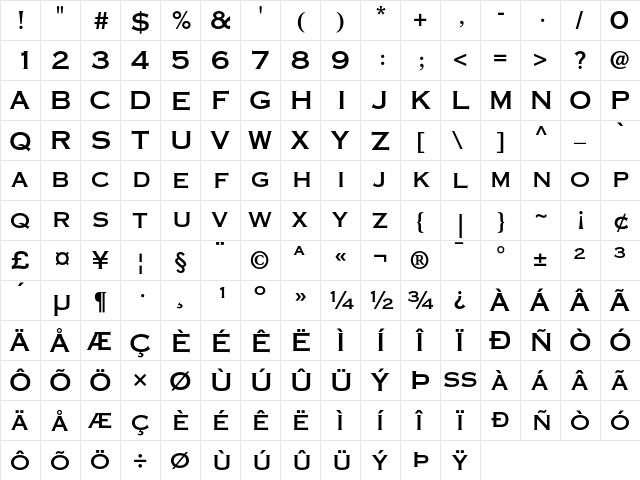
Copperplate Gothic Thirty-One AB Font Preview
Copperplate Gothic Thirty-One AB
Design Context for Copperplate Gothic Typeface
Copperplate Gothic has the quiet confidence of well-executed sans-serif typography: versatile, unobtrusive, and dependable at any size.
Font Pairing: Works well alongside a characterful serif or display font that can carry the expressive load while Copperplate Gothic handles the functional copy.
Pro Tip: Pair Copperplate Gothic with a display or serif font for headlines — its neutral character makes it an excellent supporting player in complex typographic systems.